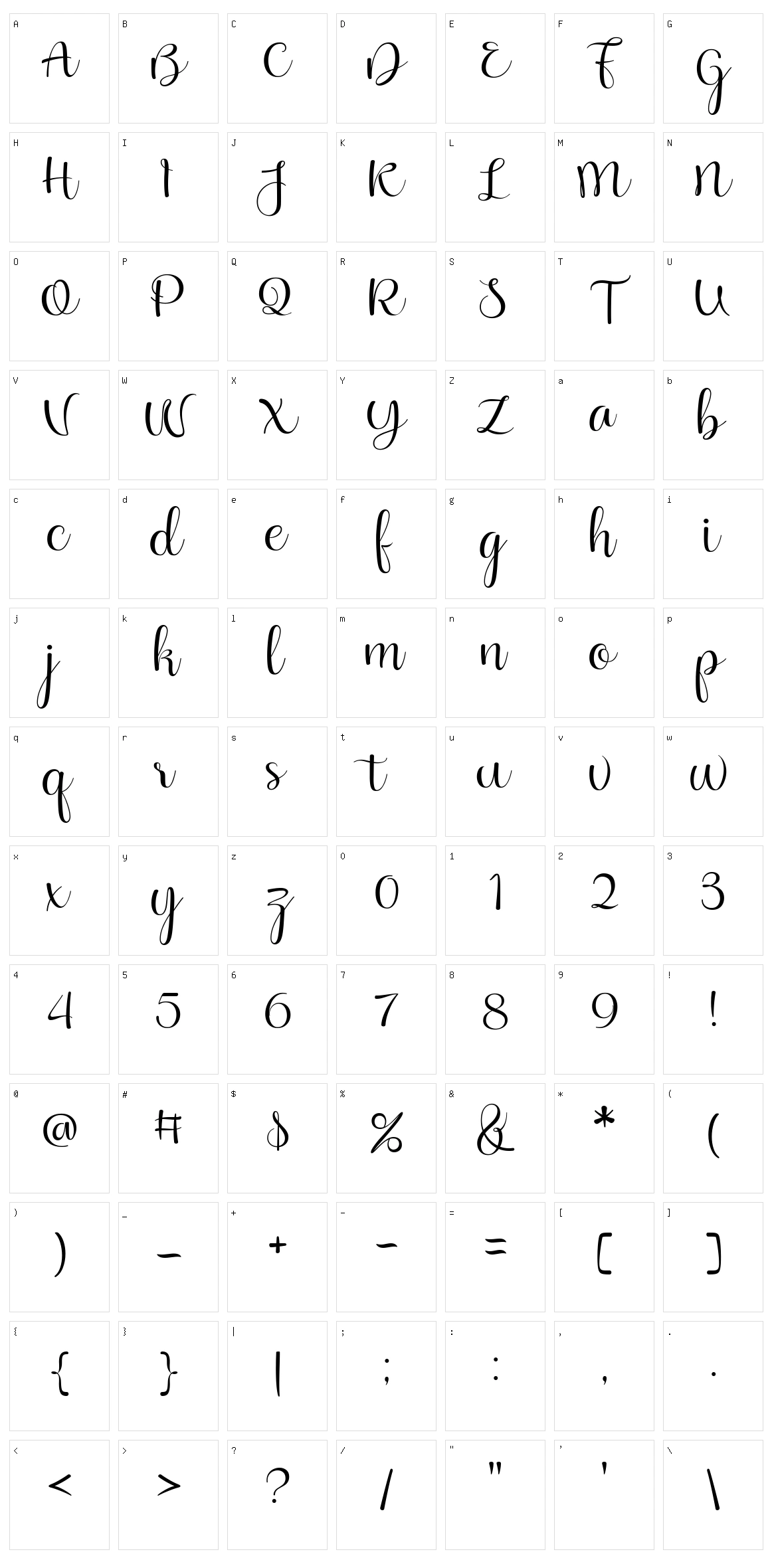
The free font Hellony is carefully designed by Alit Design, showcasing a thoughtful balance of creativity and usability and falls under the Script font style. When you download the ZIP file, it contains only 136.58 KB of font files, making it lightweight and quick to download. Please review the license details below to understand permitted usage and distribution rights. If license information is not available, we recommend using this font for personal projects only or contacting the author directly for commercial usage permissions.